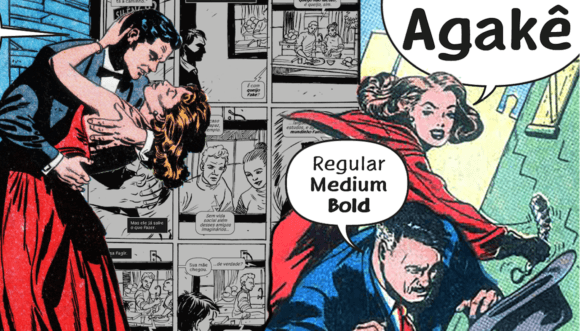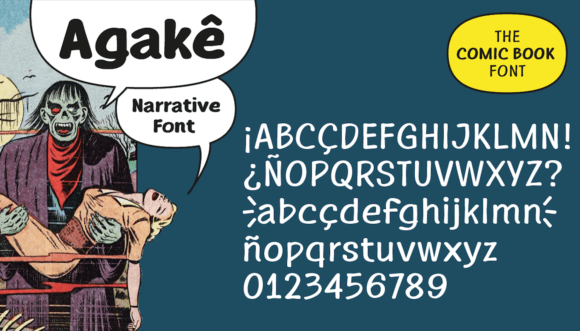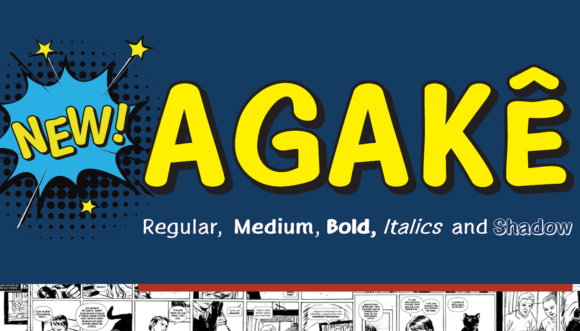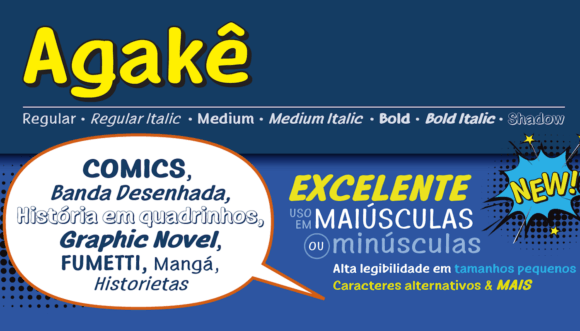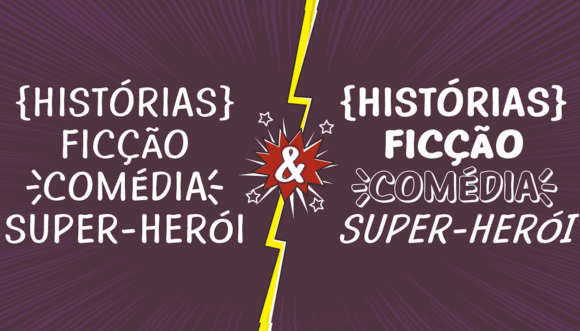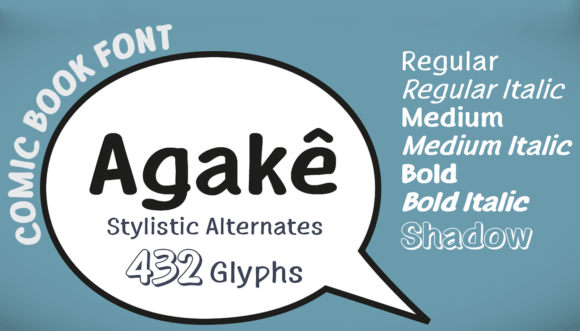
The Agakê Font: A Cool, Comic-Style Handwritten Display Font for Creative Projects
I’ll never forget the time I was working on a graphic novel project, pouring my heart and soul into bringing the characters to life. But as I was designing the cover, I hit a roadblock: I just couldn’t find the right font. The client wanted something that screamed “comic book,” but also had a touch of sophistication. That’s when I stumbled upon the Agakê font, and let me tell you, it was love at first sight! 😍
Agakê is a cool, comic-style handwritten display font that’s incredibly versatile. It’s suitable for a wide spectrum of applications, ranging from graphic novels and comic books to posters and headlines. In this article, I’ll share my experience with Agakê, its features, and how to make the most of it in your creative projects.
An Honest Review of Agakê
What I Love About Agakê ✨
• 💥 **Unique character**: Agakê has a distinct, hand-drawn feel that’s perfect for adding personality to your designs.
• ✅ **Highly legible**: Despite its comic-style vibe, Agakê is surprisingly easy to read, even at smaller sizes.
• 🎨 **Versatile**: This font can be used for a wide range of projects, from digital art to print materials.
• 💻 **OpenType features**: Agakê supports OpenType features, including glyphs and stylistic alternates, giving you plenty of creative options.
While Agakê is an amazing font, it’s not perfect. Here are a few things to keep in mind:
• ⚠️ **Limited use in body text**: Agakê is best used for headlines and titles. Its comic-style feel may not be suitable for longer blocks of text.
• 🤔 **Kerning issues**: As with any font, you may need to adjust kerning to get the best results, especially when using all caps or mixing with other fonts.
The Backstory of Agakê
Agakê was designed with the goal of creating a font that’s both fun and functional. The designer wanted to capture the essence of comic books and graphic novels, while also making it suitable for a wide range of creative projects. The result is a font that’s both nostalgic and modern.
Q: What is Agakê best used for?
Agakê is best used for headlines, titles, and short blocks of text in graphic novels, comic books, posters, and other creative projects.
Q: Is Agakê suitable for body text?
No, Agakê is not recommended for body text. Its comic-style feel may not be suitable for longer blocks of text.
Q: Does Agakê support OpenType features?
Yes, Agakê supports OpenType features, including glyphs and stylistic alternates.